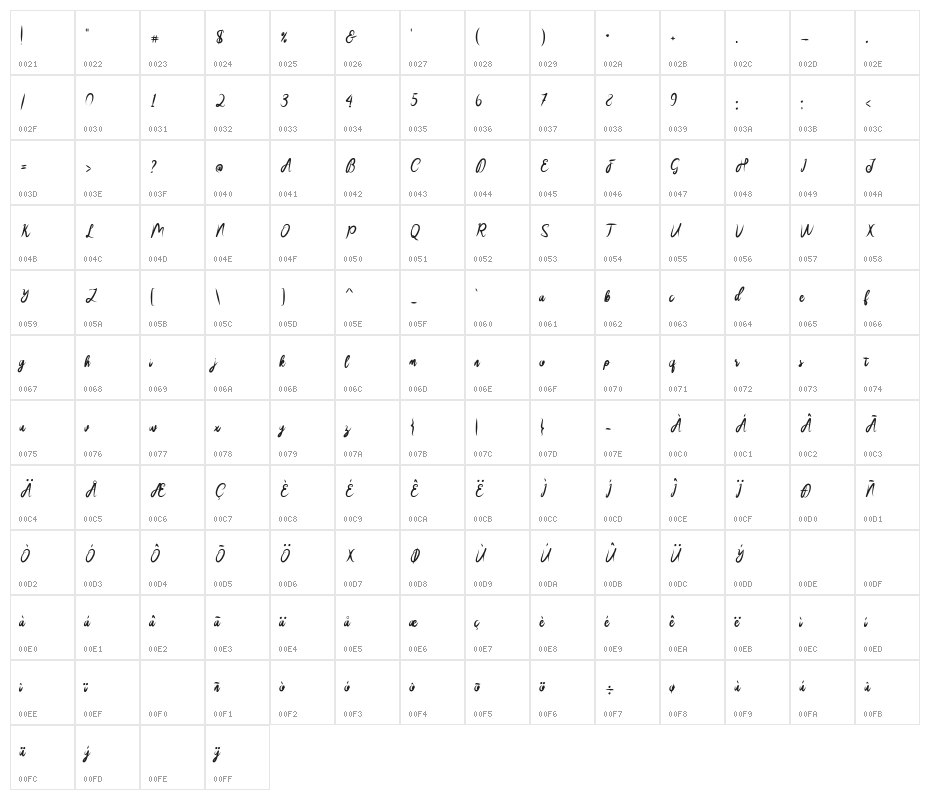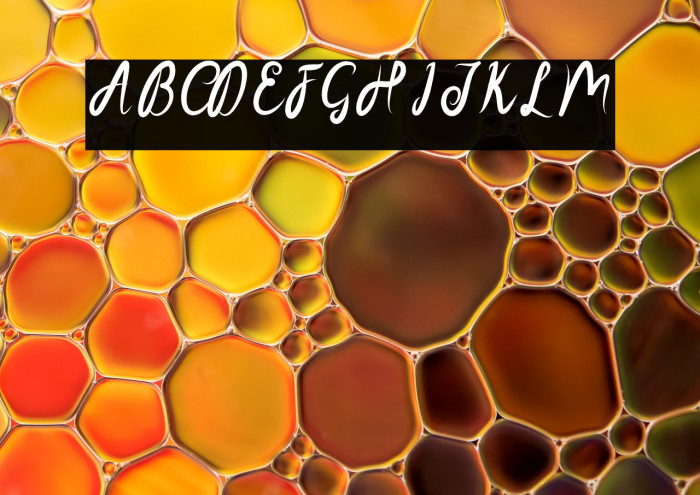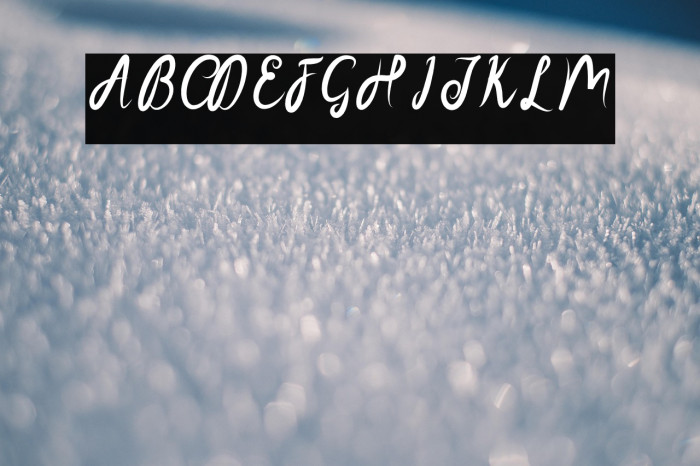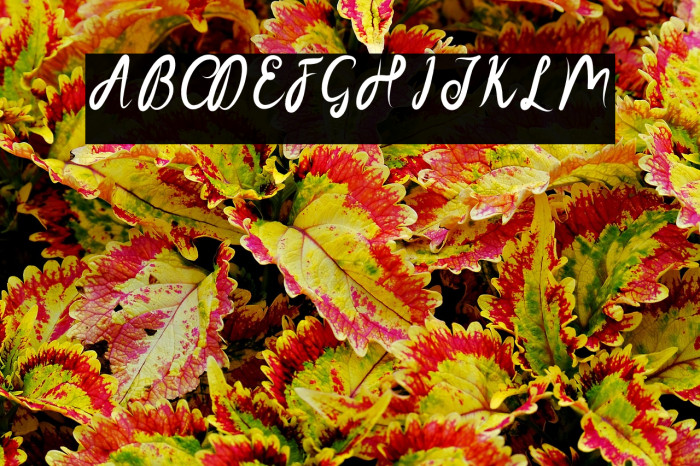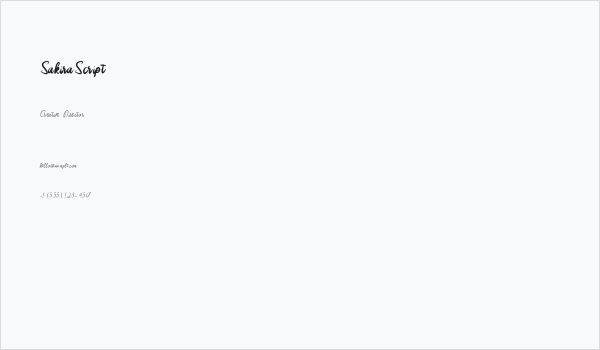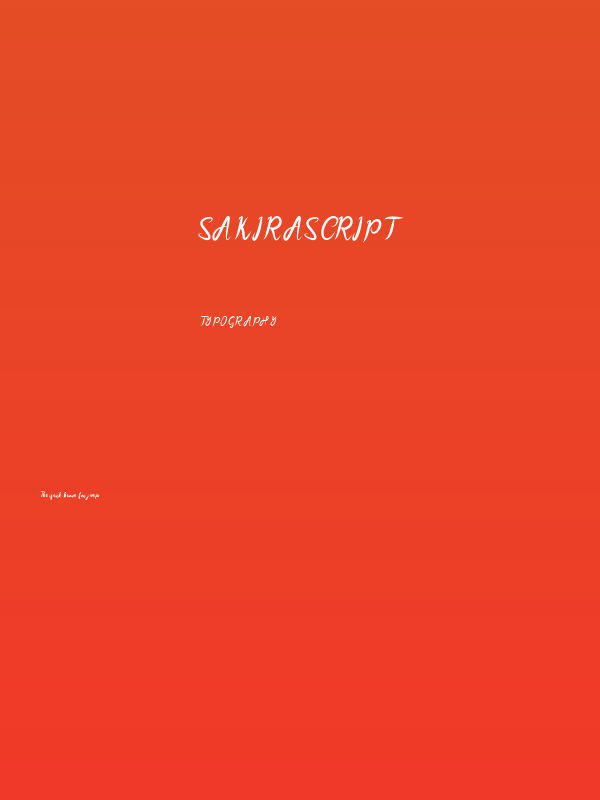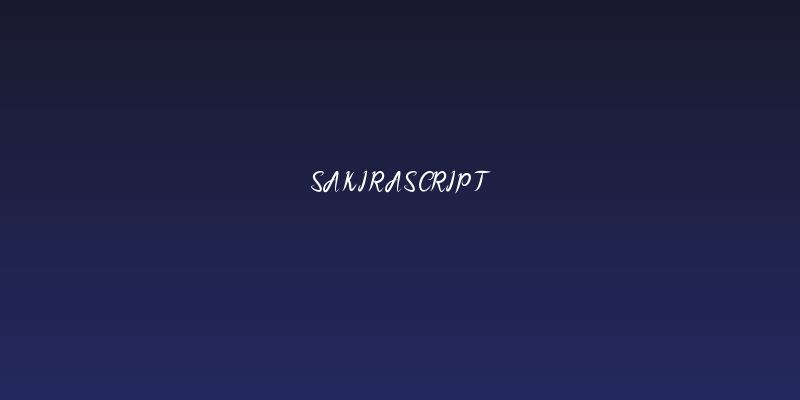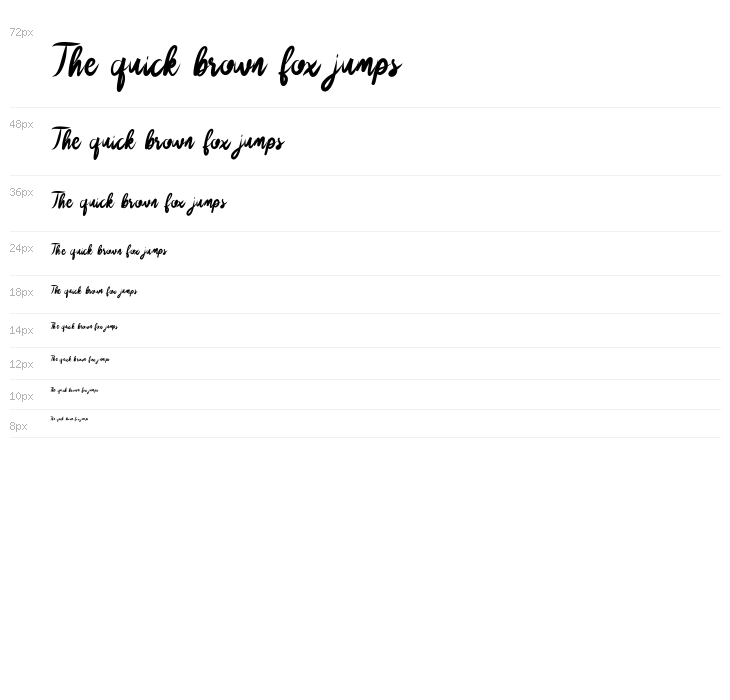
SakiraScript Font
SakiraScript Description
This elegant script font features fluid, cursive strokes that convey a sense of sophistication and grace. The uppercase letters are characterized by sweeping curves and flourishes, while the lowercase letters maintain a consistent flow with a slightly more compact form. The numbers are designed with a similar fluidity, ensuring a cohesive look across all characters. Special characters are thoughtfully integrated, maintaining the font's overall aesthetic. This font is ideal for projects that require a touch of elegance and personal flair.